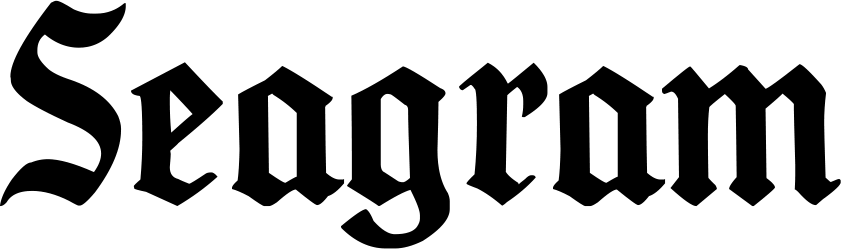
Seagram TFB Font
For creating a medieval vibe you need a gothic font like Seagram TFB which can work well for historic books and movies, signs, and logos. By choosing this font you are doing yourself a favor. In this font, both the uppercase and lowercase alphabets, numbers, and punctuation marks, all in all, are available for you.